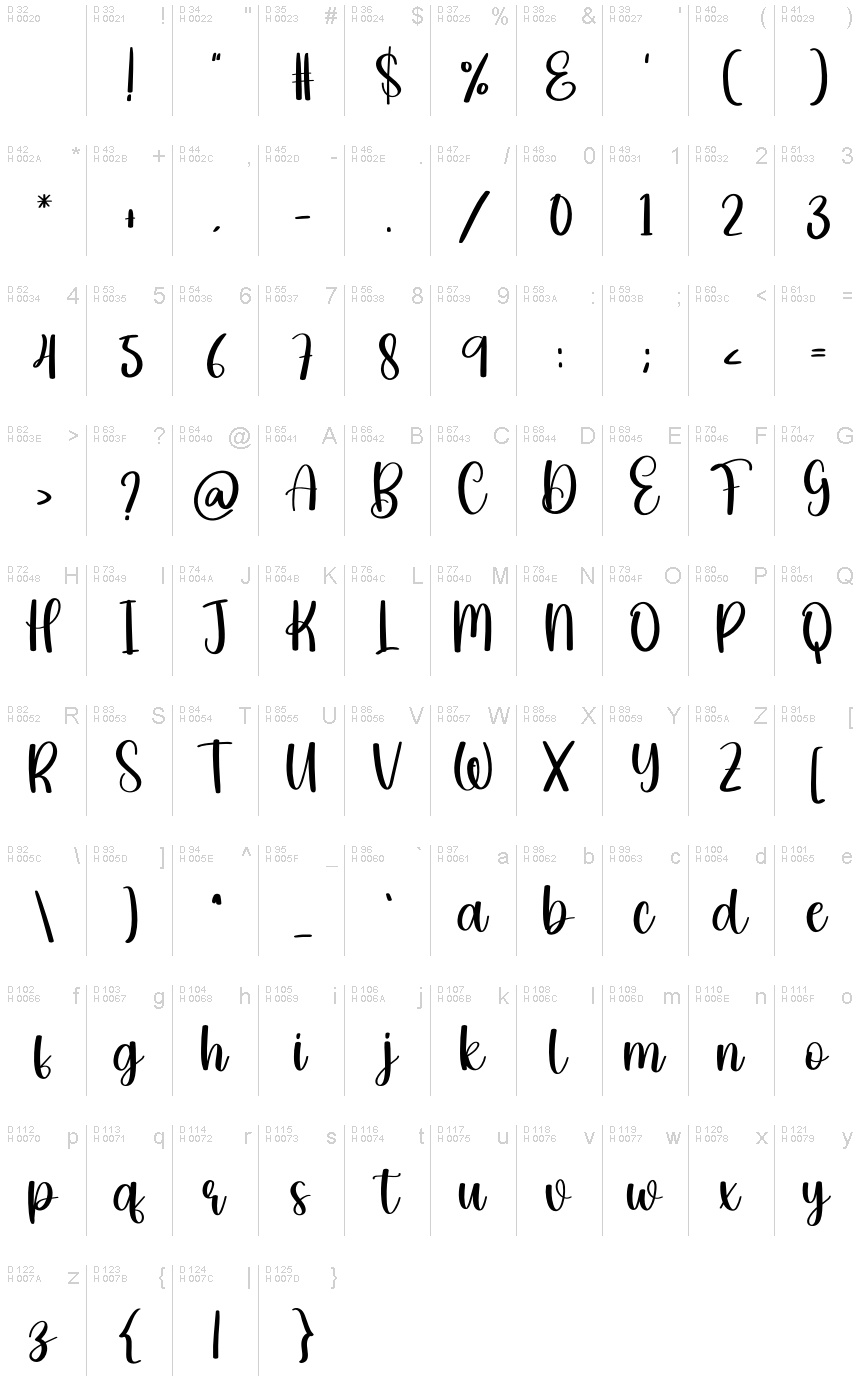
Rain
Rain, the latest handcrafted masterpiece from scratchones is a stunning semi-condensed font that is perfect for adding an artistic touch to your projects. With its unique handwritten style, Rain brings a personal touch to every design. Whether you're designing invitations or creating posters, this font will add a creative flair to your work. Its semi-condensed width makes it ideal for fitting more text into smaller spaces without sacrificing legibility. Imagine using Rain for greeting cards, logos, or even social media graphics – the possibilities are endless! Let Rain be the perfect finishing touch that elevates your project to new heights of creativity and originality.
the latest style letters are perfect for wall displays, wedding invitations, social media post logos, advertisements, product packaging, product designs, labels, photography, watermarks, invitations, stationery, and any project that requires taste handwriting.